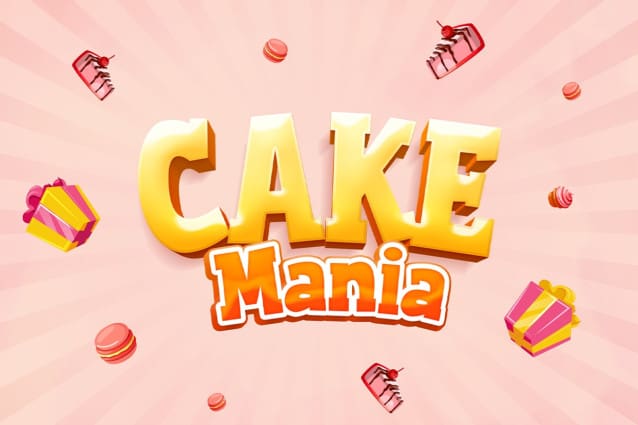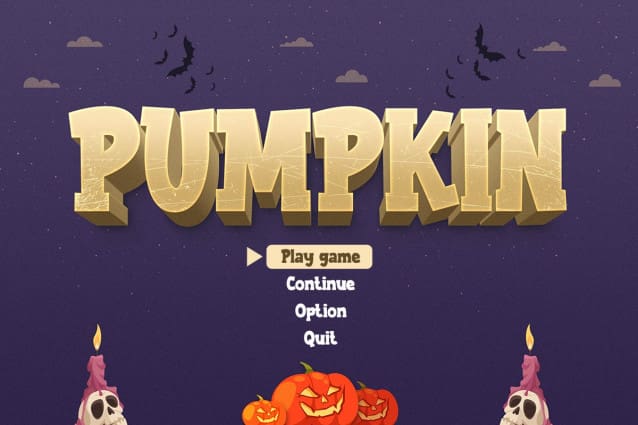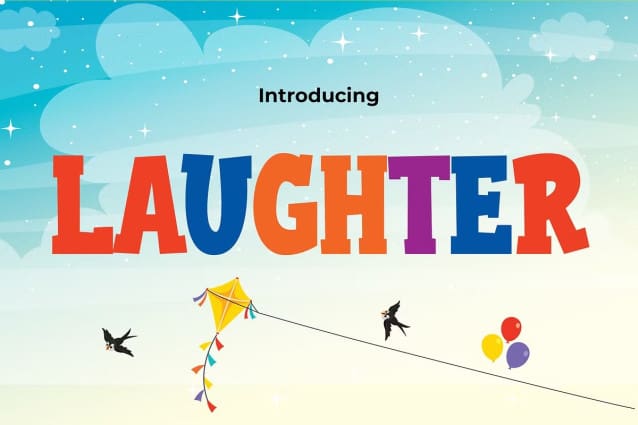
Laughter Playful Font
Laughter Playful Font is a font that embodies the essence of joy and whimsy, tailored specifically for projects geared towards children, games, and cartoons. With its playful curves and lively strokes, Laughter Playful brings a sense of fun and excitement to every design it graces. Each letter dances across the page, radiating warmth and cheer, creating an atmosphere of laughter and delight.
Whether you’re crafting educational materials, designing interactive games, or illustrating vibrant cartoon characters, Laughter adds a touch of magic that captivates young hearts and sparks the imagination. With its versatility and charm, this font becomes the perfect companion for any creative endeavor aimed at bringing smiles to faces and spreading happiness wherever it goes. Let Laughter be the voice of your designs, echoing with the laughter of children and the joy of playful adventures.